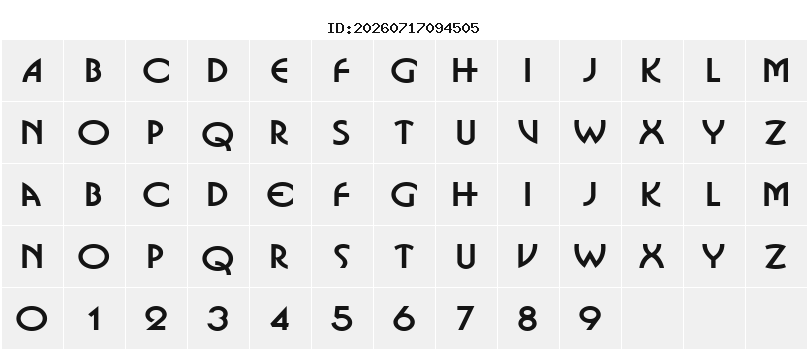
• Font Name: Bosnia Wide
• Full Font Name: Bosnia Wide Bold
About Bosnia Wide.ttf
Bosnia Wide.ttf is a modern, elegant sans-serif font designed for ultimate readability and visual harmony. Perfect for branding, headlines, web design, and print materials.